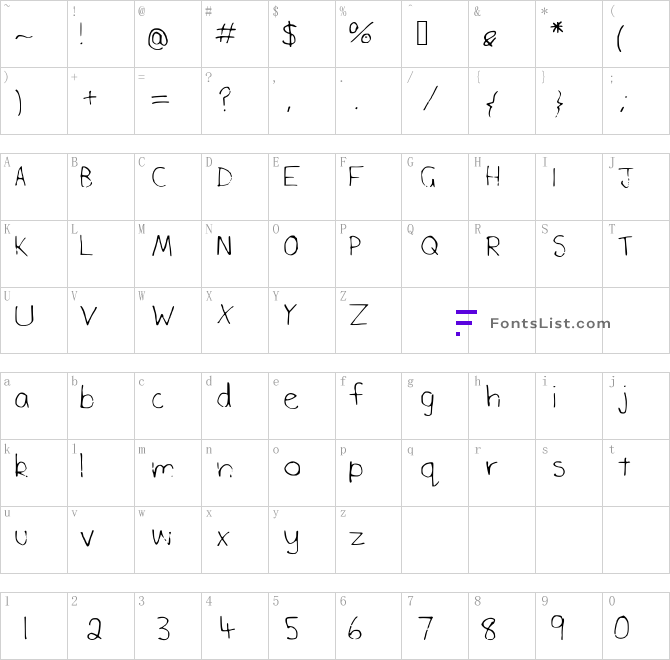
- Font Name:ArielRoseJonas
ArielRoseJonas.ttf is a very beautiful artistic font, ArielRoseJonas.ttf is widely used in the design and printing of various books and pictures,ArielRoseJonas.ttf has a strong visual impact,ArielRoseJonas.ttf is a commonly used font in newspapers, magazines and books, and is used in posters, e-commerce Poster design, store design, logo design, font design and other fields.ArielRoseJonas.